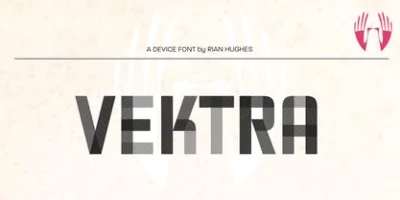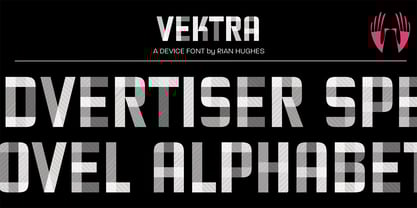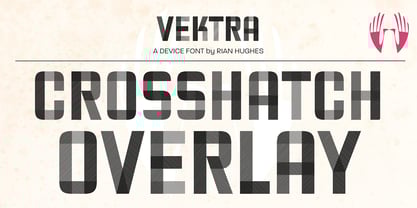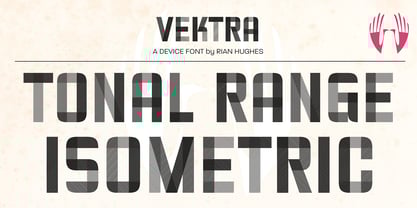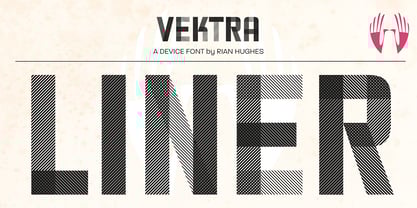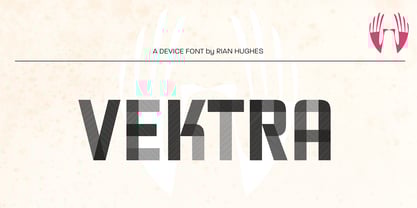
There is a particular satisfaction in finding a typeface that delivers optical balance across all weights without compromise. Vektra consistently provides it. The typeface brings a versatile sensibility to a broad range of creative disciplines, with strong typographic hierarchy support that holds up whether the work is print-first or screen-first.
In practice, Vektra proves particularly effective for packaging design, logo design, social media graphics, web design, editorial layouts. Designers reaching for it find that the type decisions feel resolved rather than laboured — a useful quality when client timelines are tight.
The range of applications extends to annual reports, poster creation, brand identity systems, environmental graphics. That breadth is deliberate: the proportions and spacing were stress-tested across a wide range of mock briefs before the typeface was finalised.
Art directors commissioning type-led campaigns find Vektra a reliable choice for projects that demand both personality and restraint. The design avoids the self-conscious quirkiness that dates quickly, settling instead for considered distinctiveness that holds up over time.